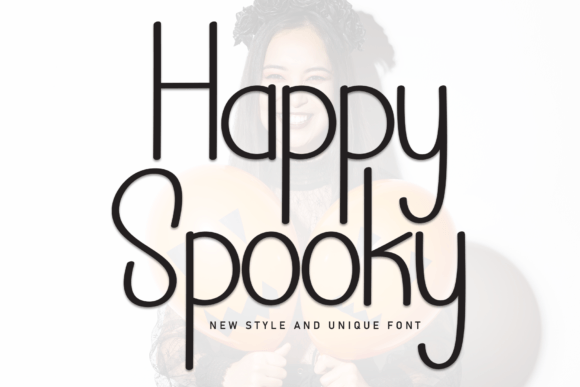
When Words Come Alive: Discover the Magic of Handwritten Typography
Have you ever found yourself scribbling down a list of gift ideas for a friend’s birthday, only to be interrupted by the sound of a child’s giggles and the wobble of a candle flame? In that fleeting moment, you felt the urge to bring a little more whimsy into the world. That’s exactly what the Happy Spooky Font is designed to do – infuse your designs with a sense of playfulness and wonder.
This enchanting handwritten display typeface is more than just a font – it’s a key to unlocking the joy in your creations. Whether you’re crafting wedding invitations, birthday cards, or social media graphics, the Happy Spooky Font adds a sprinkle of magic to your text, making it irresistible to the eyes of your audience.
Happy Spooky Font Key Features
- Font Styles: The Happy Spooky Font offers a variety of styles, including regular, bold, italic, and bold-italic, allowing for versatility in design.
- Character Set: The font includes a wide range of characters, including uppercase and lowercase letters, numbers, punctuation, and special characters, making it suitable for various applications.
- Unique Characteristics: The Happy Spooky Font features a unique blend of spooky and playful elements, making it perfect for Halloween-themed designs, party invitations, and other festive projects.
Happy Spooky Font Review
At first glance, Happy Spooky Font is quite a unique and playful choice for any design project. ✨ I love the creative and quirky vibe it brings, making it perfect for Halloween-themed designs or any project that requires a touch of whimsy.
Here are some of the things I appreciate about this font:
- It’s highly legible, even at smaller font sizes ✨
- The font has a wide range of weights, making it suitable for various design applications ✨
- The quirky design elements add a fun and creative touch to any text ✨
- The font may not be suitable for formal or professional designs due to its playful nature ⚠️
- The creative elements may be overwhelming for some users, making it difficult to read or understand the text ⚠️
- The font may not be compatible with older systems or software, which could cause display issues ⚠️
Overall, I think Happy Spooky Font is a great choice for the right project. While it may not be suitable for all designs, it’s perfect for those looking to add a touch of creativity and whimsy. With some careful consideration and planning, this font can be a real showstopper.
Getting the Most Out of Happy Spooky Font
For the best results, use Happy Spooky Font for Halloween-themed designs, invitations, and party decorations. Experiment with different font sizes, colors, and combinations to create a spooky yet playful atmosphere.